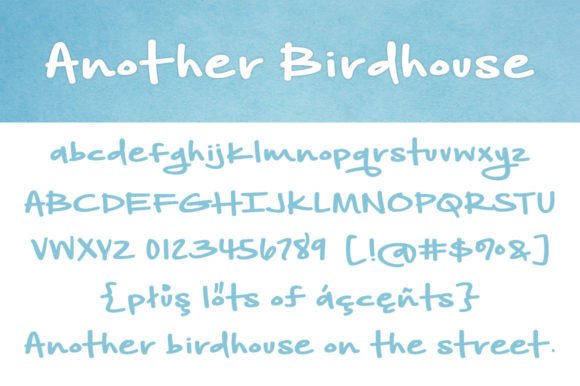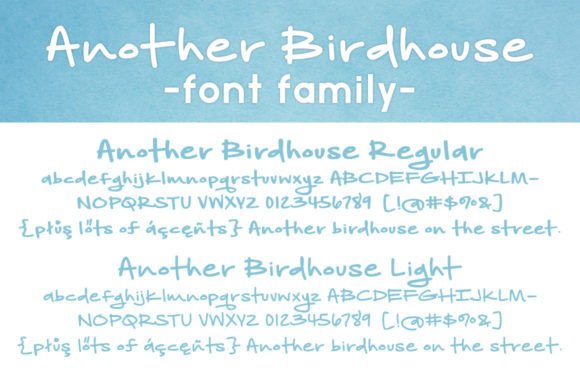
Introducing Another Birdhouse Font: A Friendly Handwritten Typeface for Your Creative Projects
Are you tired of using the same old fonts for your graphic design projects? Look no further! Another Birdhouse Font is a beautiful, handwritten typeface that can add a personal touch to your designs. With its unique, hand-crafted characters, this font is perfect for creating cards, by-lines, and other visual elements that require a friendly and approachable feel.
What Makes Another Birdhouse Font Special?
Another Birdhouse Font is a one-of-a-kind typeface that stands out from the crowd. Its hand-written style gives it a warm and inviting feel, making it perfect for designers and crafters who want to add a personal touch to their work. The font’s unique characters are carefully crafted to provide a natural, effortless look that is sure to capture the attention of your audience.
Key Features of Another Birdhouse Font
- Handwritten style: Another Birdhouse Font is a handwritten typeface that provides a warm and personal feel to your designs.
- Unique characters: Each character in the font is carefully crafted to provide a natural, effortless look.
- Versatile: This font is perfect for a variety of design projects, including cards, by-lines, and other graphic design elements.
- Easily readable: The font is designed to be easily readable, making it perfect for body text and headings.
Why Designers and Crafters Love Another Birdhouse Font
Designers and crafters love Another Birdhouse Font for its versatility and unique style. The font can be used for a wide range of projects, from creating handmade cards and invitations to designing logos and branding materials. Its friendly and approachable feel makes it perfect for designers who want to create a personal connection with their audience.
How to Use Another Birdhouse Font in Your Designs
Using Another Birdhouse Font in your designs is easy. Here are a few tips to get you started:
- Pair it with other fonts: Another Birdhouse Font pairs well with other fonts, including serif and sans-serif typefaces.
- Use it for headings and titles: The font’s unique style makes it perfect for headings and titles.
- Add it to your branding materials: Use Another Birdhouse Font to create a consistent look across your branding materials, including logos, business cards, and social media graphics.
Tips for Pairing Another Birdhouse Font with Other Fonts
Pairing Another Birdhouse Font with other fonts can create a unique and visually appealing look. Here are a few tips to keep in mind:
- Pair it with a serif font: Pairing Another Birdhouse Font with a serif font can create a nice contrast between the two typefaces.
- Use it with a sans-serif font: Pairing Another Birdhouse Font with a sans-serif font can create a clean and modern look.
- Experiment with different font sizes: Experimenting with different font sizes can help create visual interest and hierarchy in your designs.
| Font Name | Another Birdhouse Font |
| Author | brittneymurphydesign |
Another Birdhouse Font is a beautiful, handwritten typeface that can add a personal touch to your graphic design projects. With its unique, hand-crafted characters and versatile style, this font is perfect for designers and crafters who want to create a friendly and approachable feel. Whether you’re creating handmade cards, designing logos, or crafting branding materials, Another Birdhouse Font is a great choice.